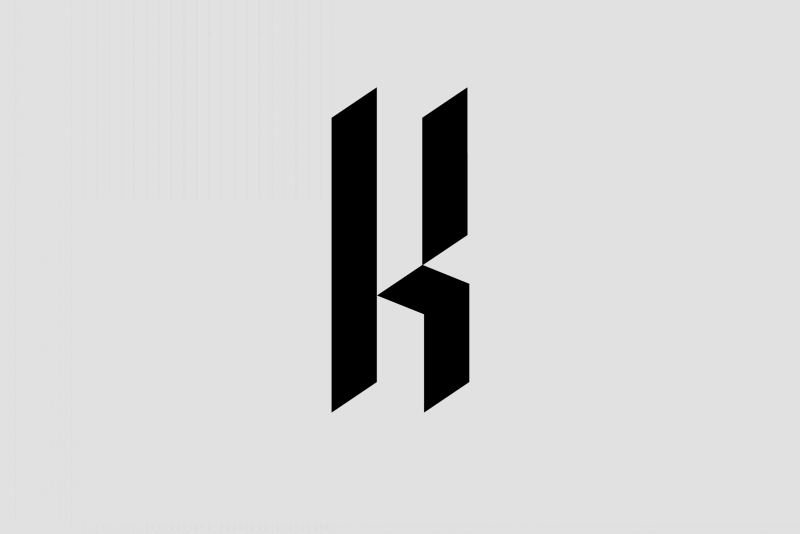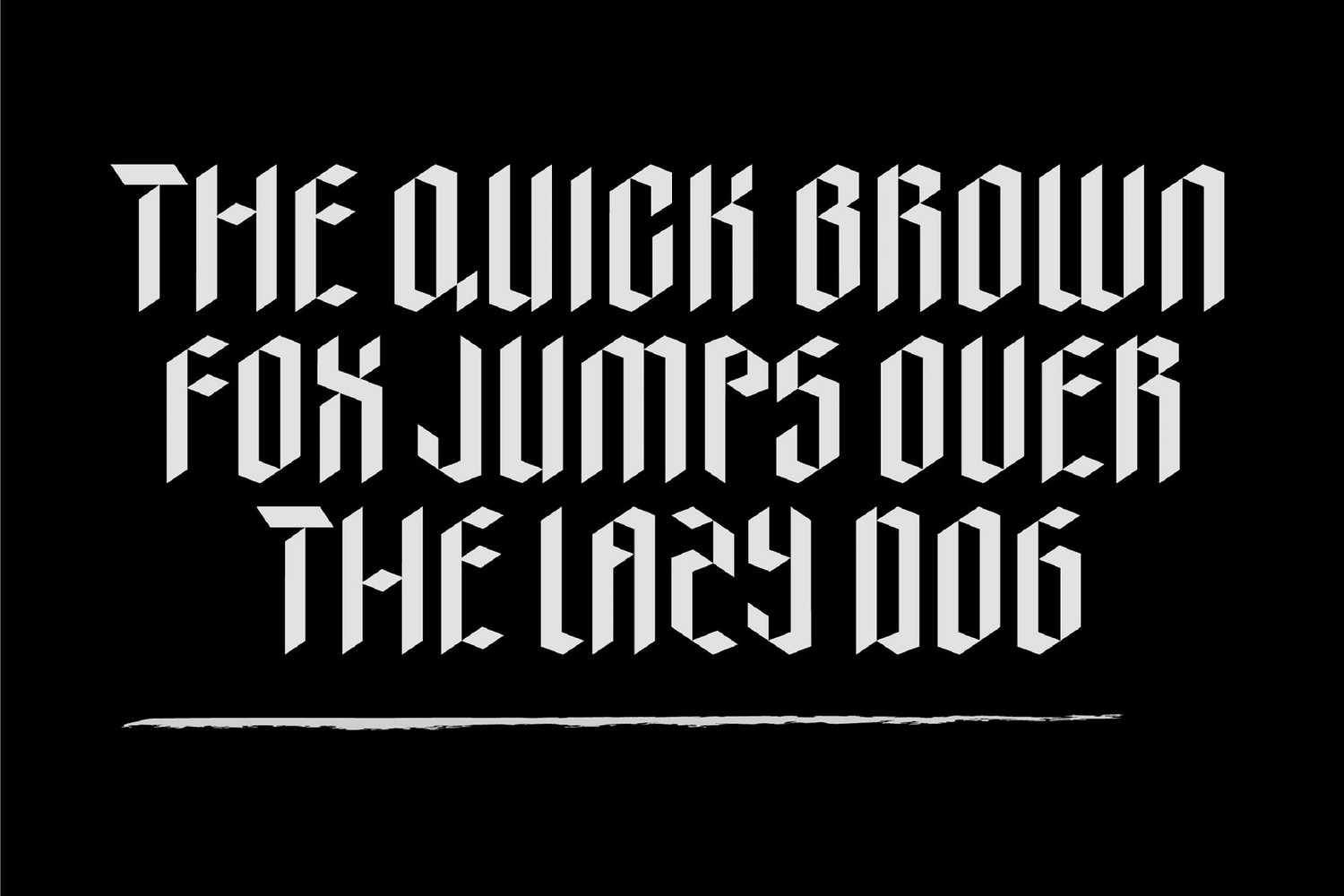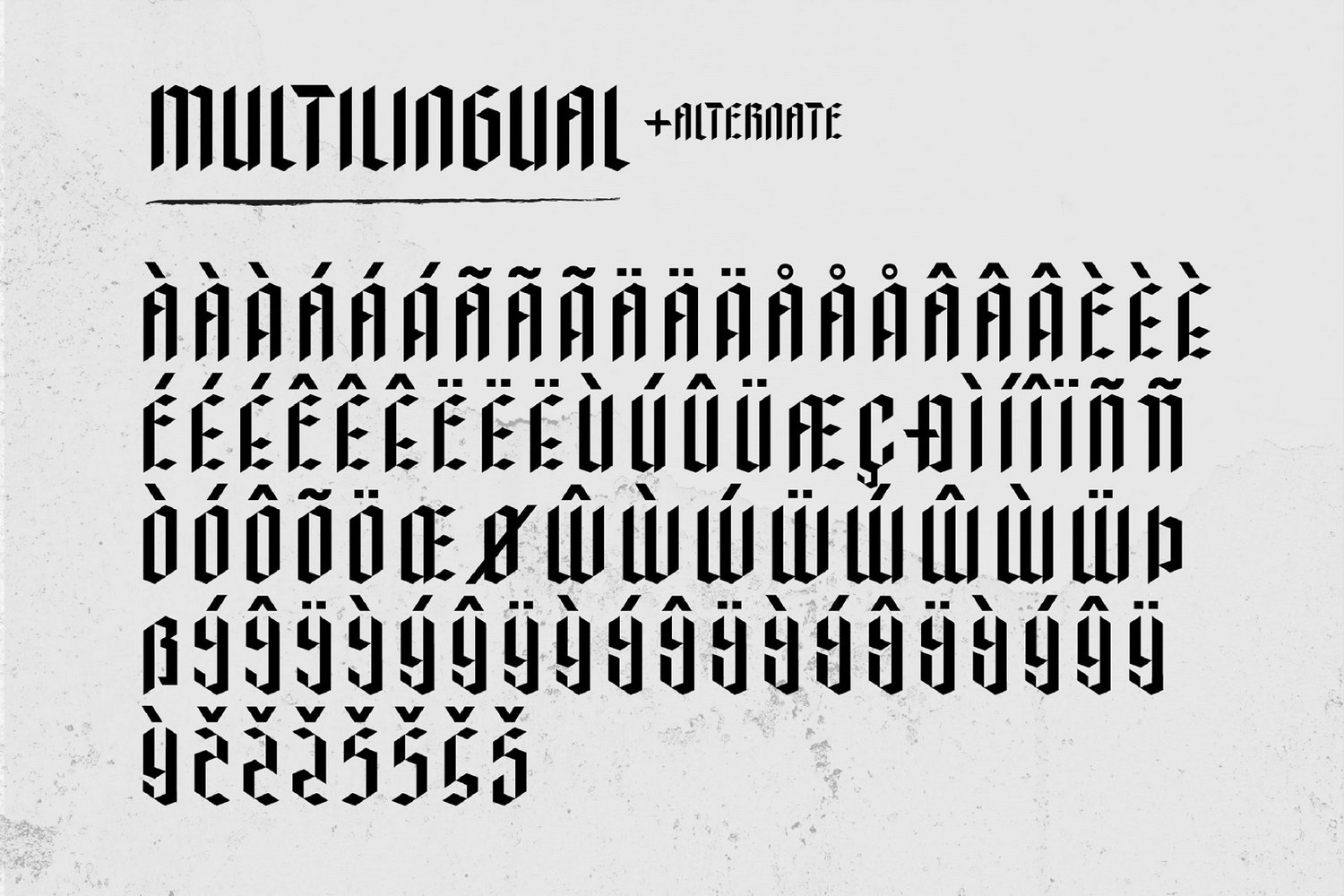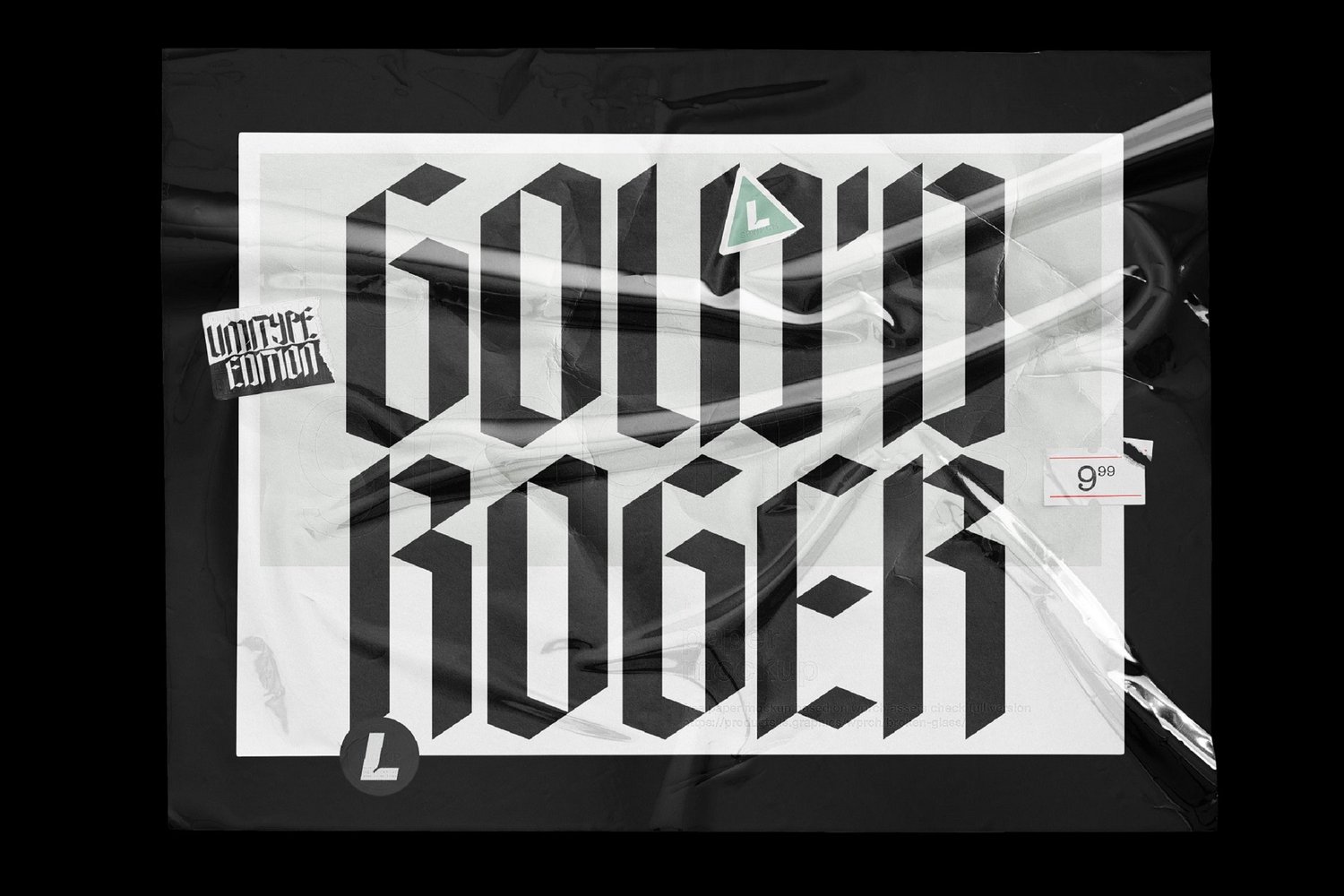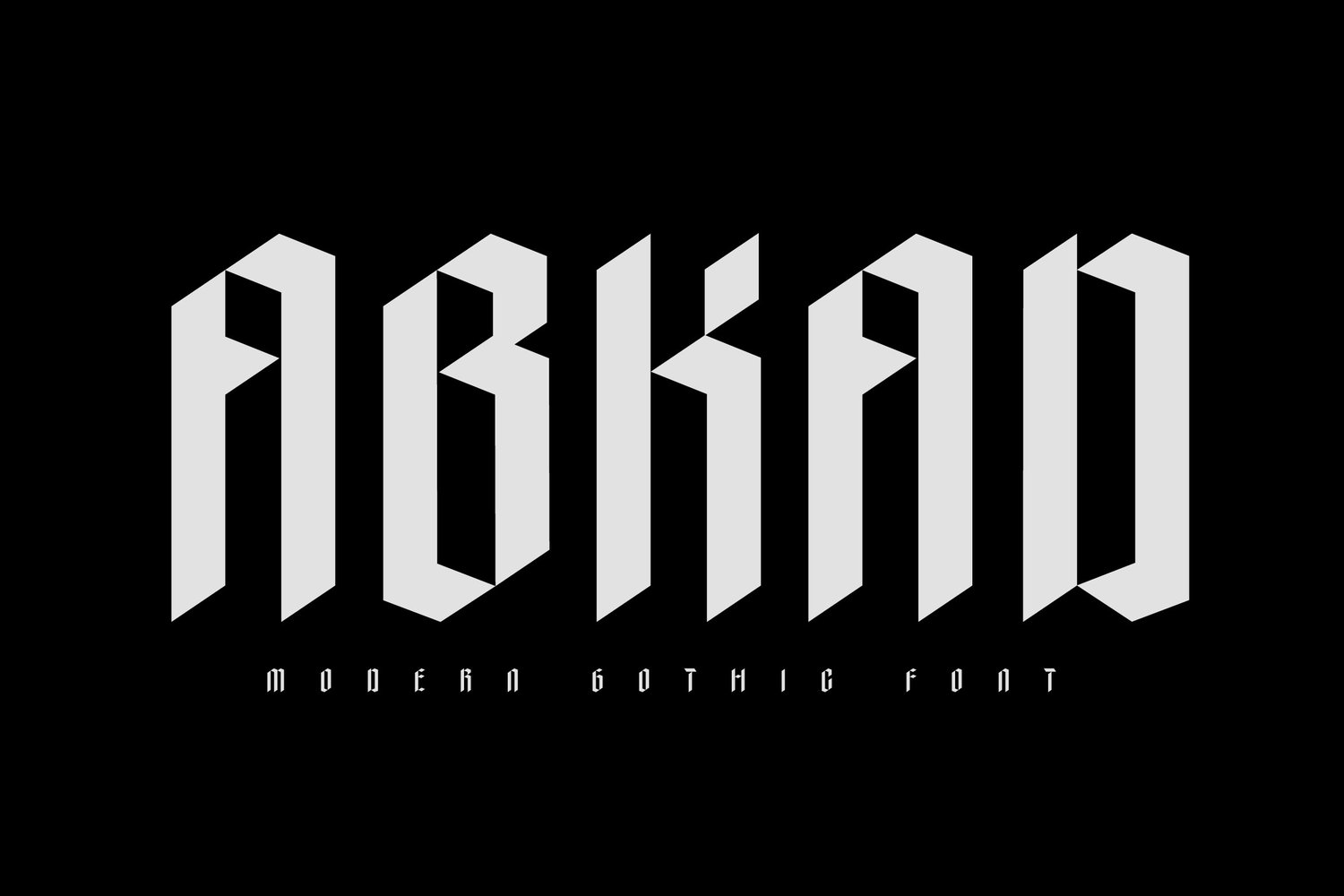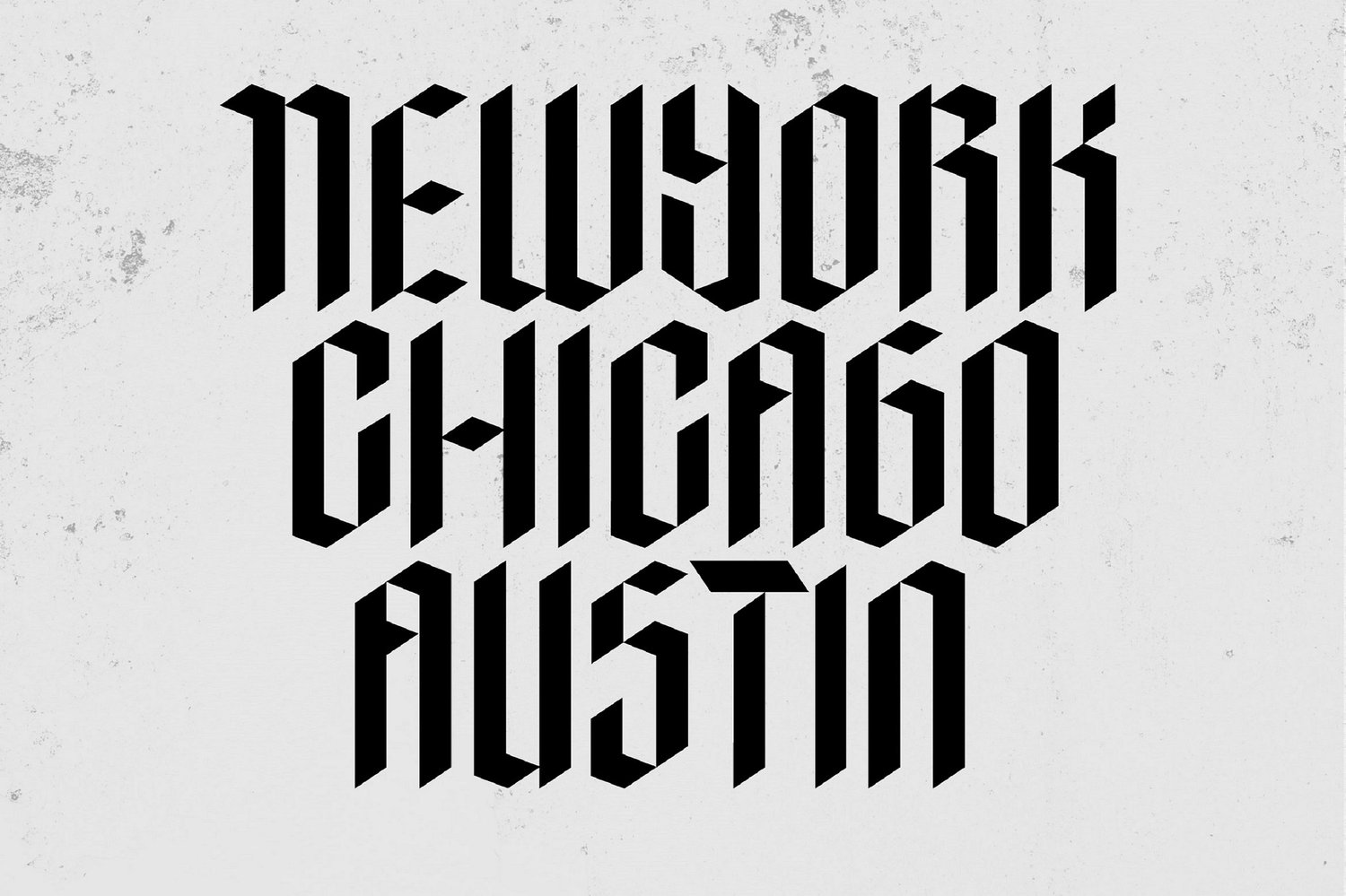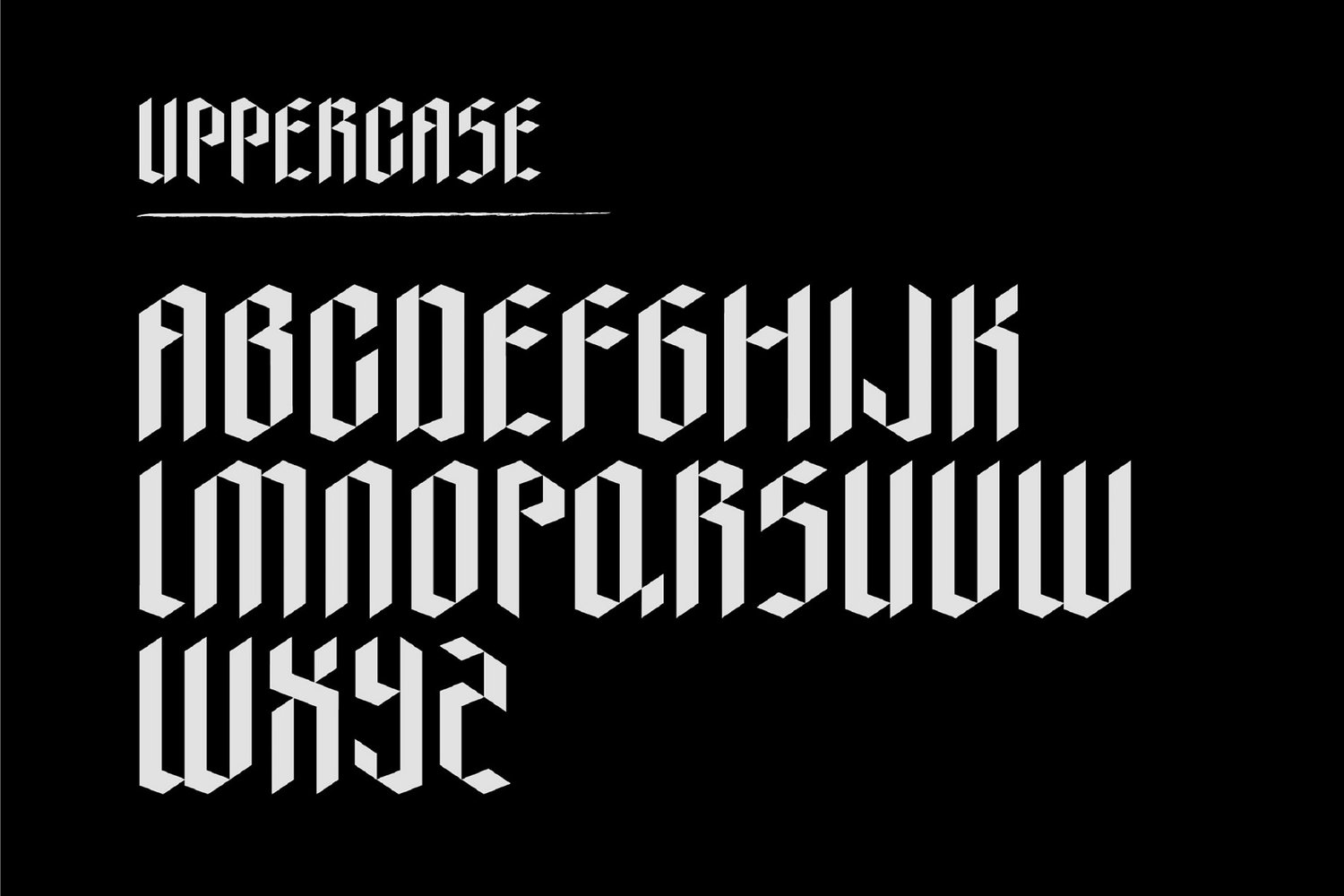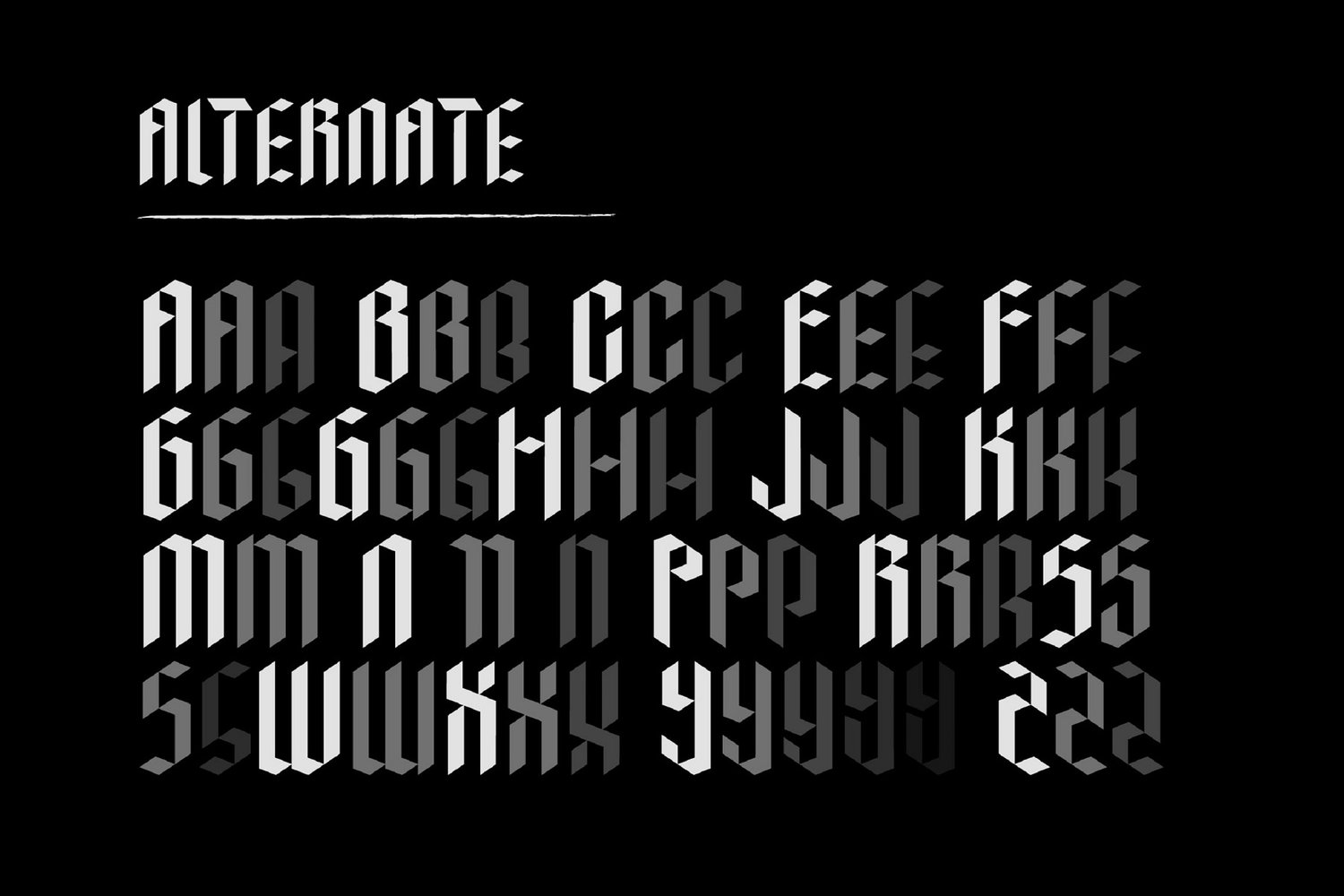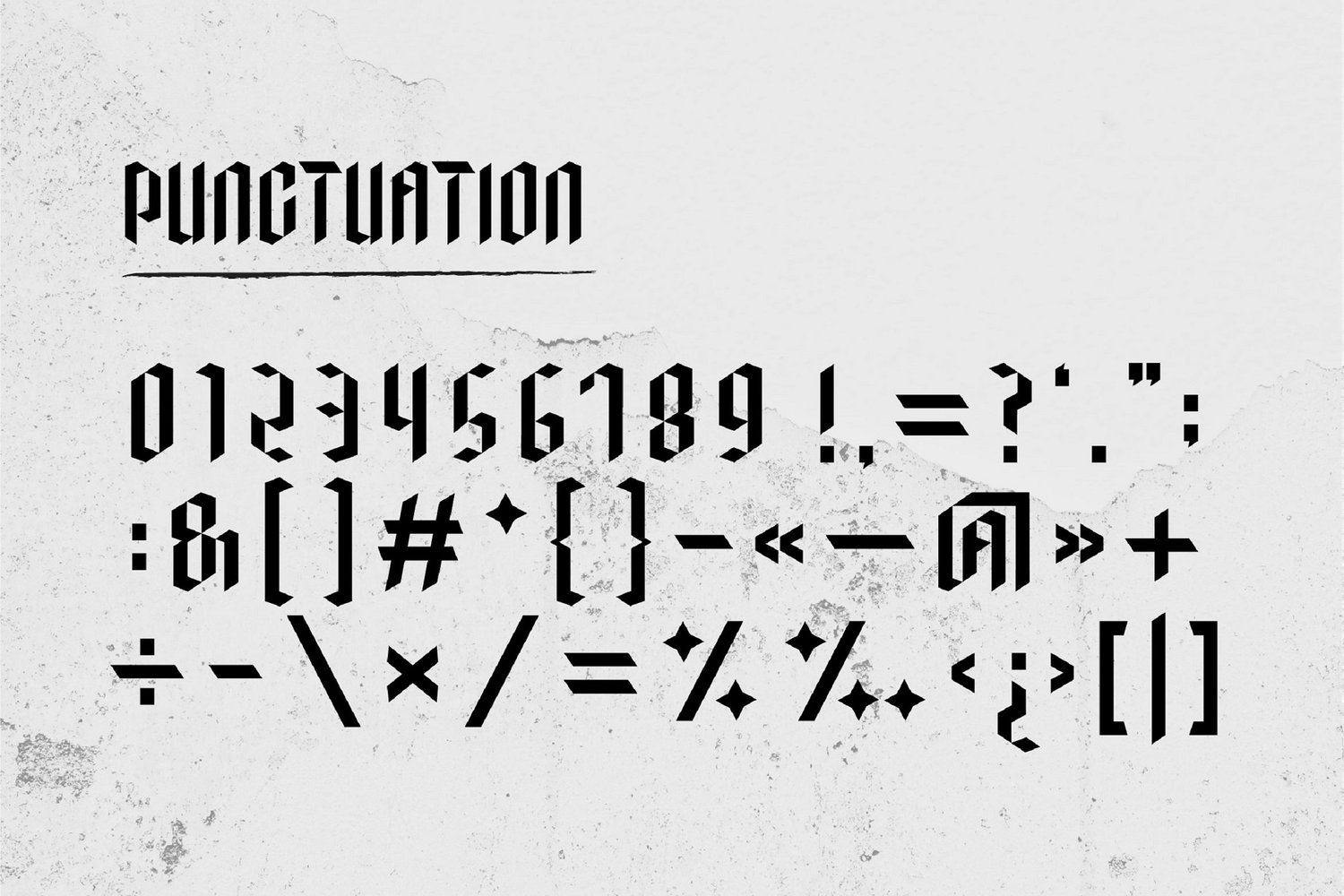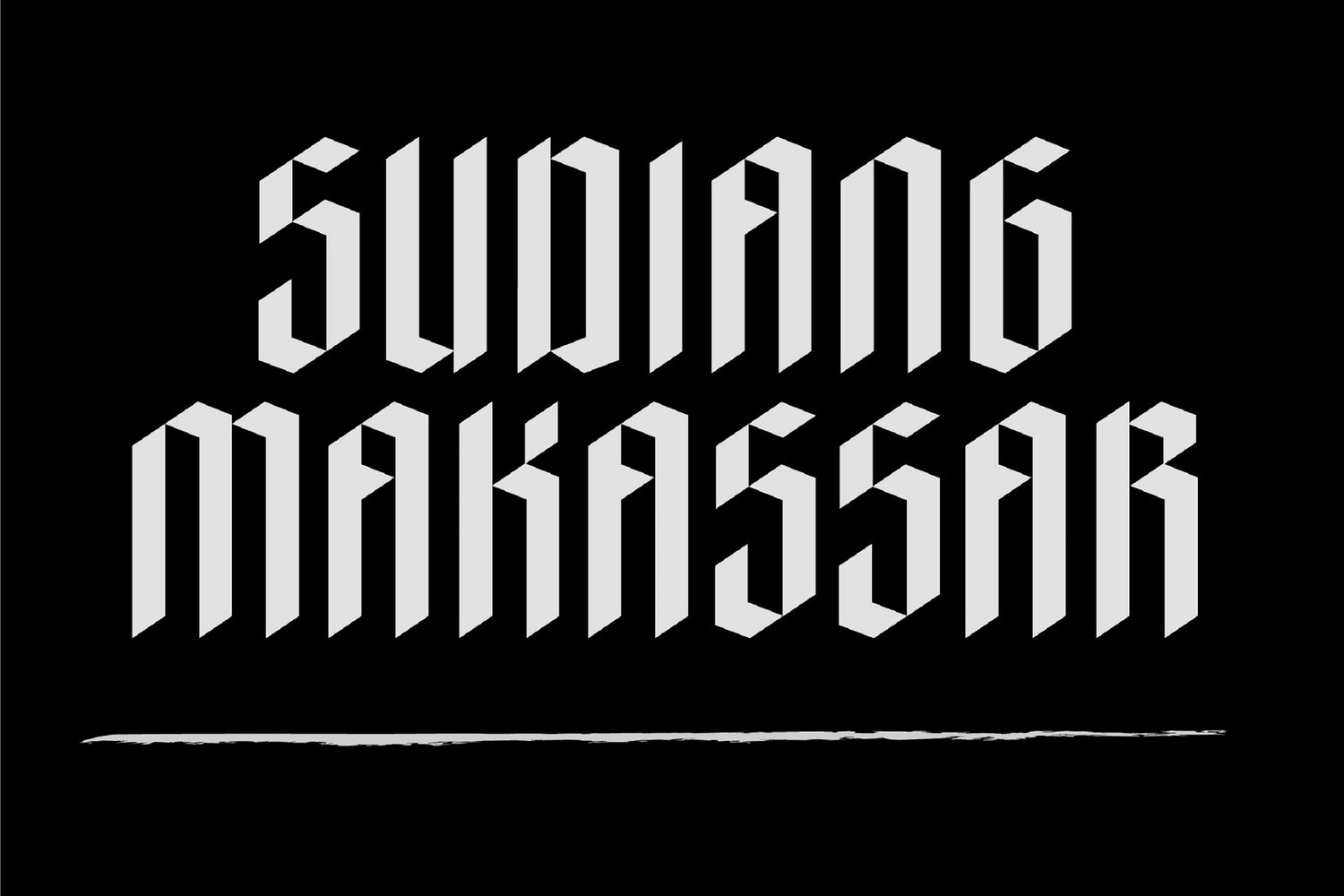
Abkad - Modern Gothic Font
ABKAD is a display font with a gothic style made with a more modern touch, perfect for your design projects such as merchandise, posters, book headlines, logos, etc. ABKAD is equipped with uppercase, numbers, punctuation, multilingual and unique alternate